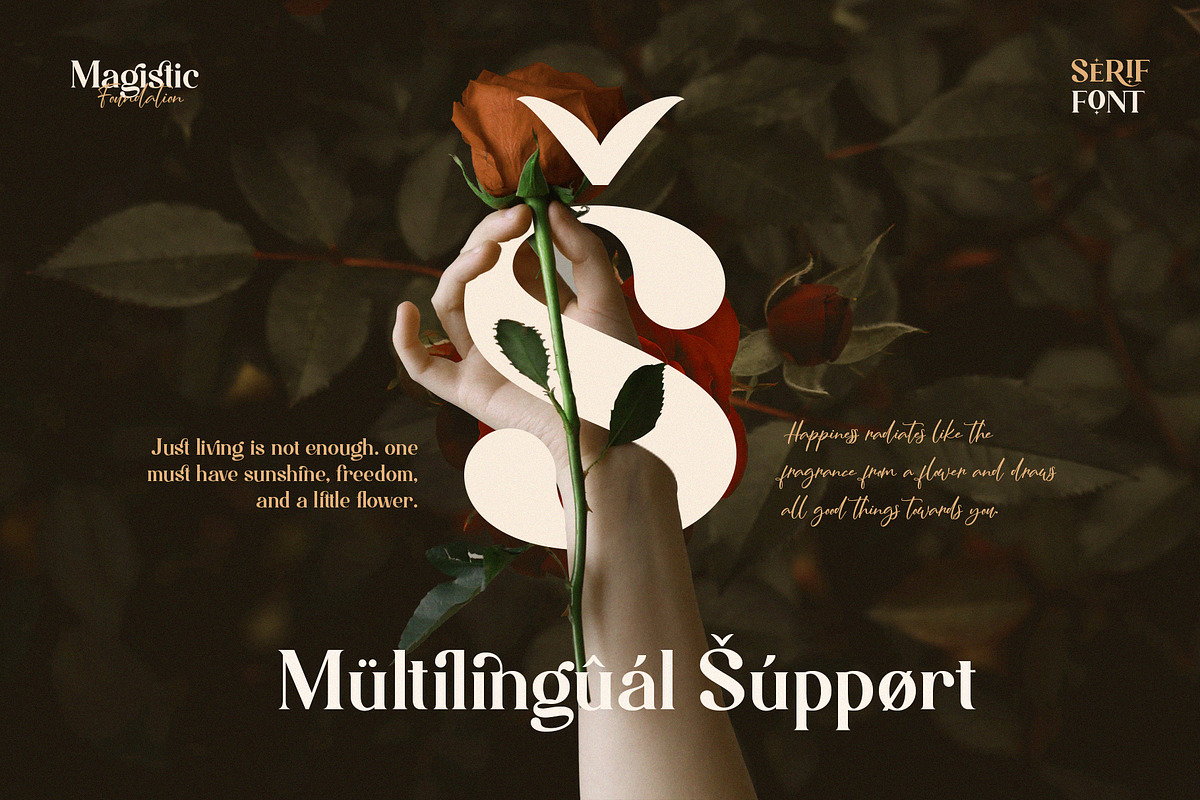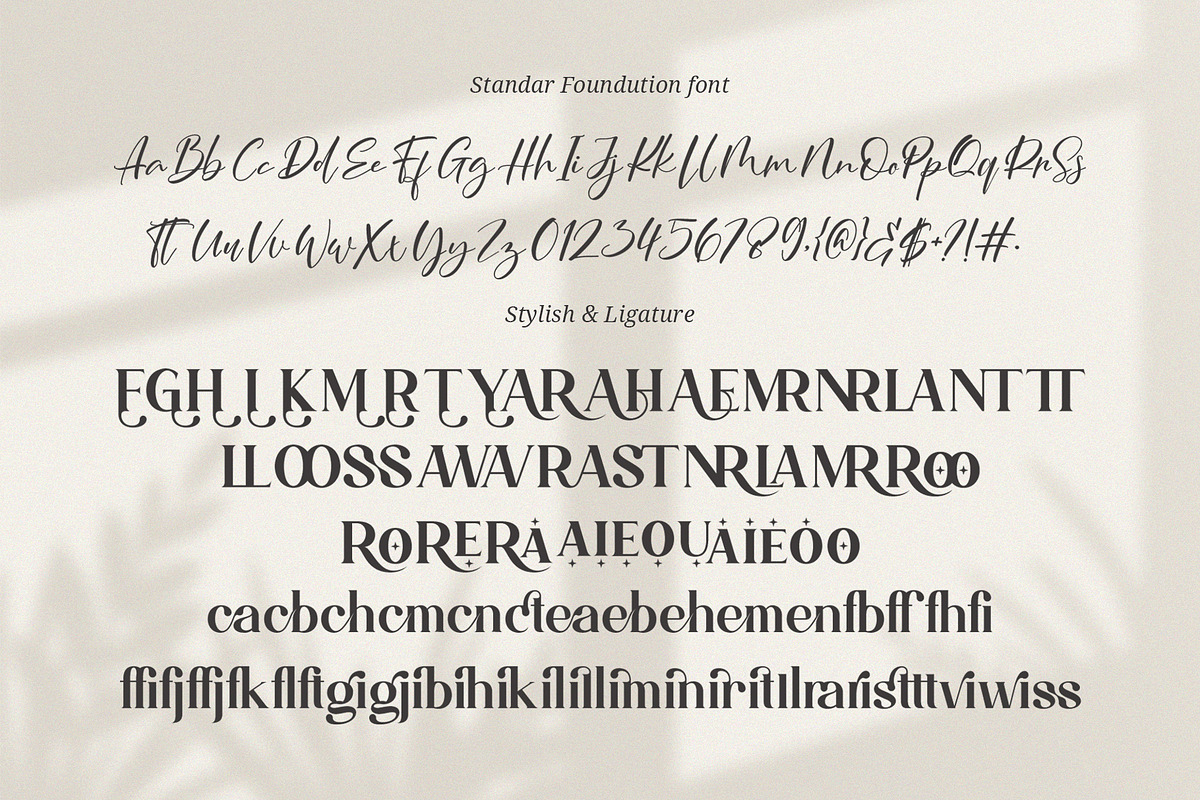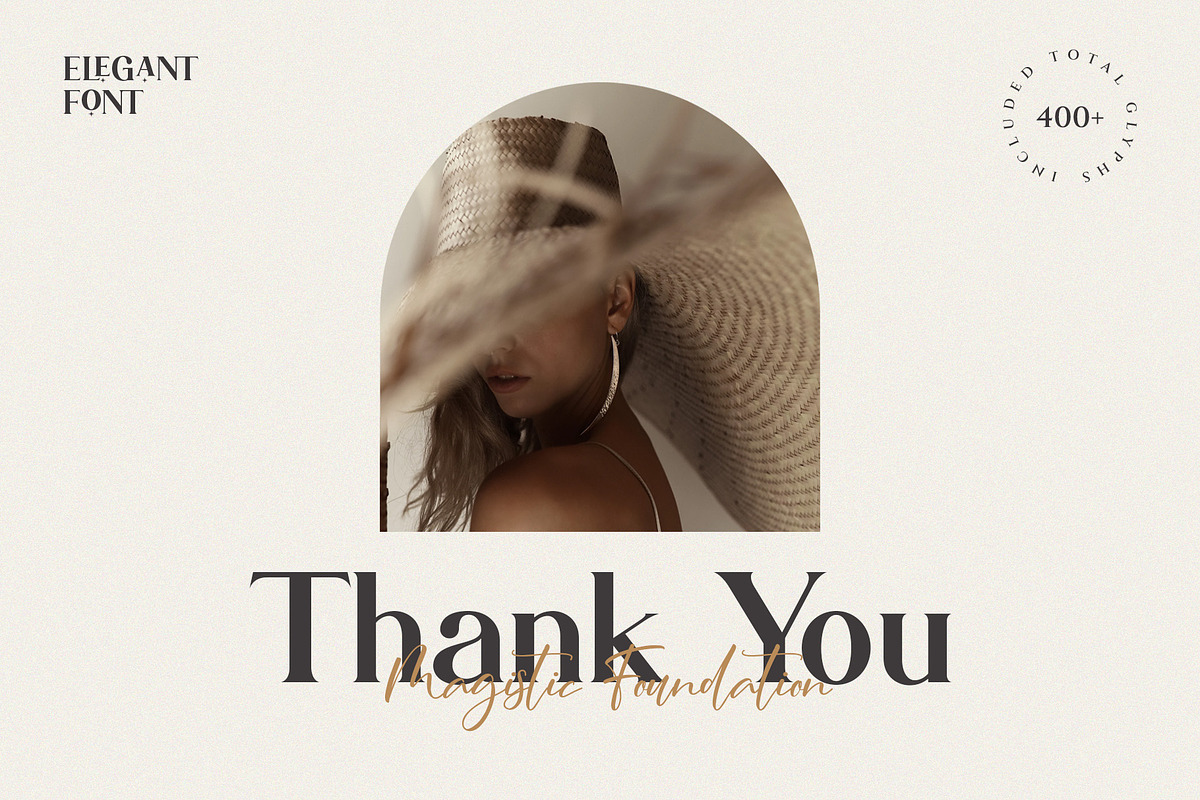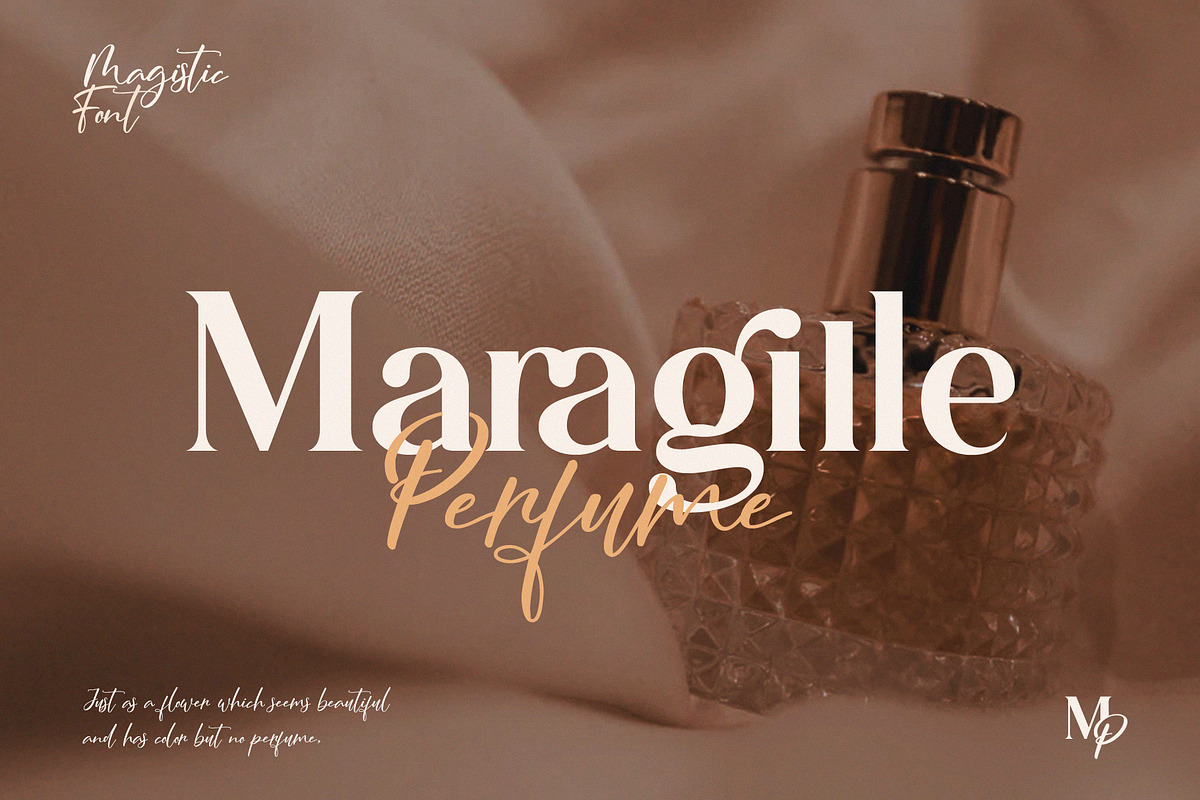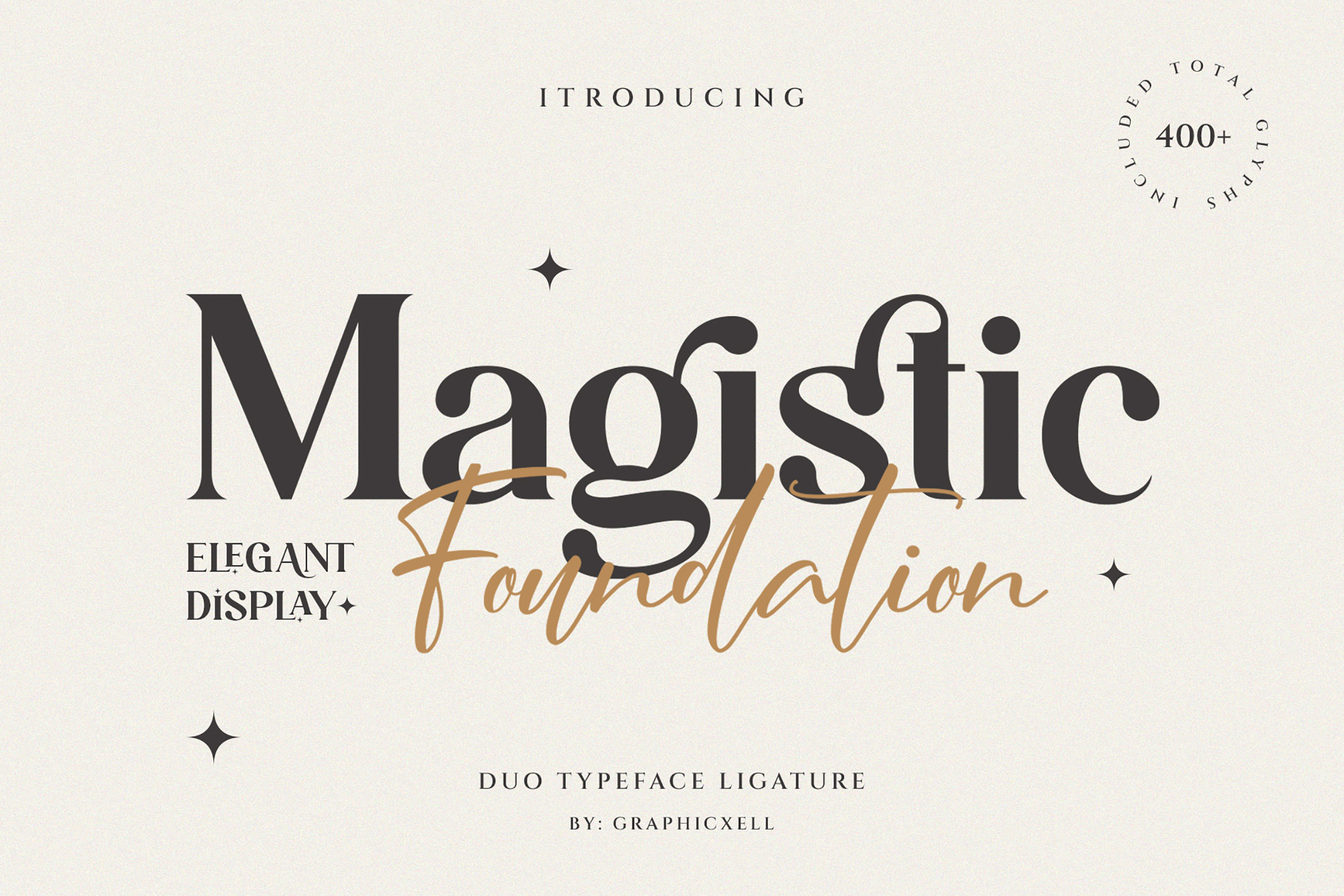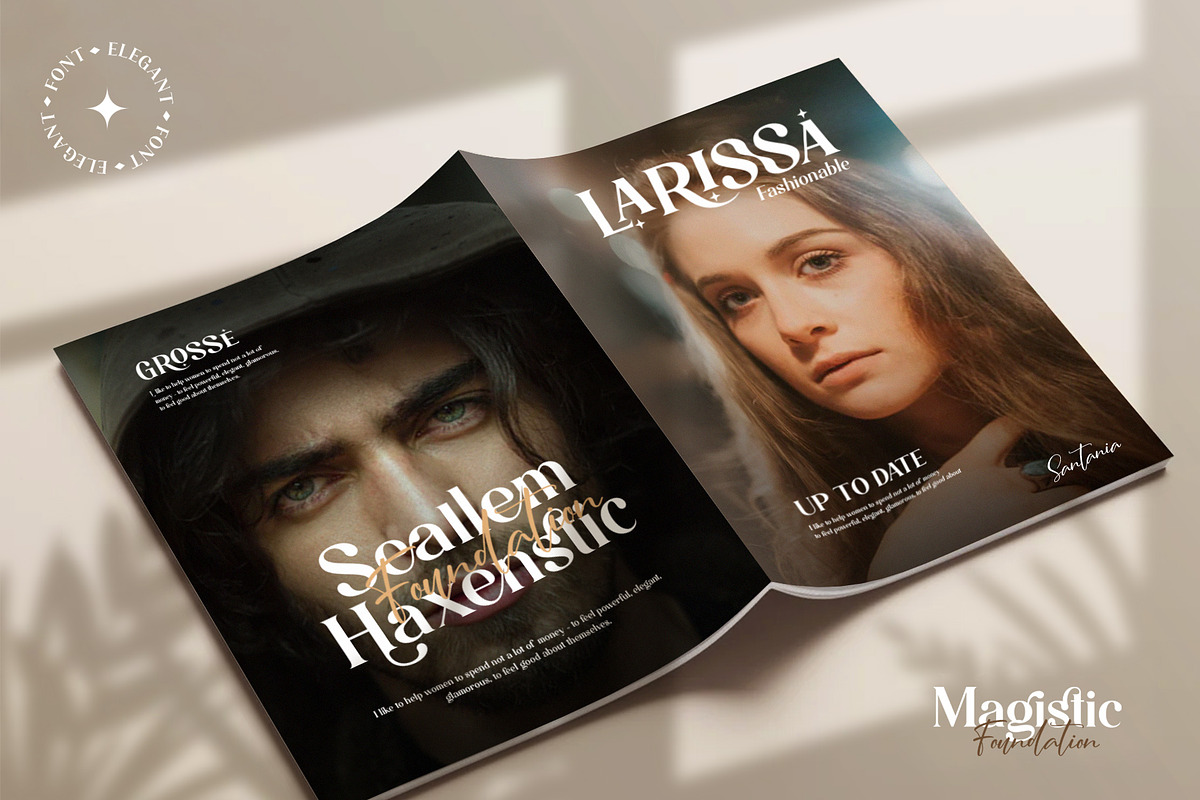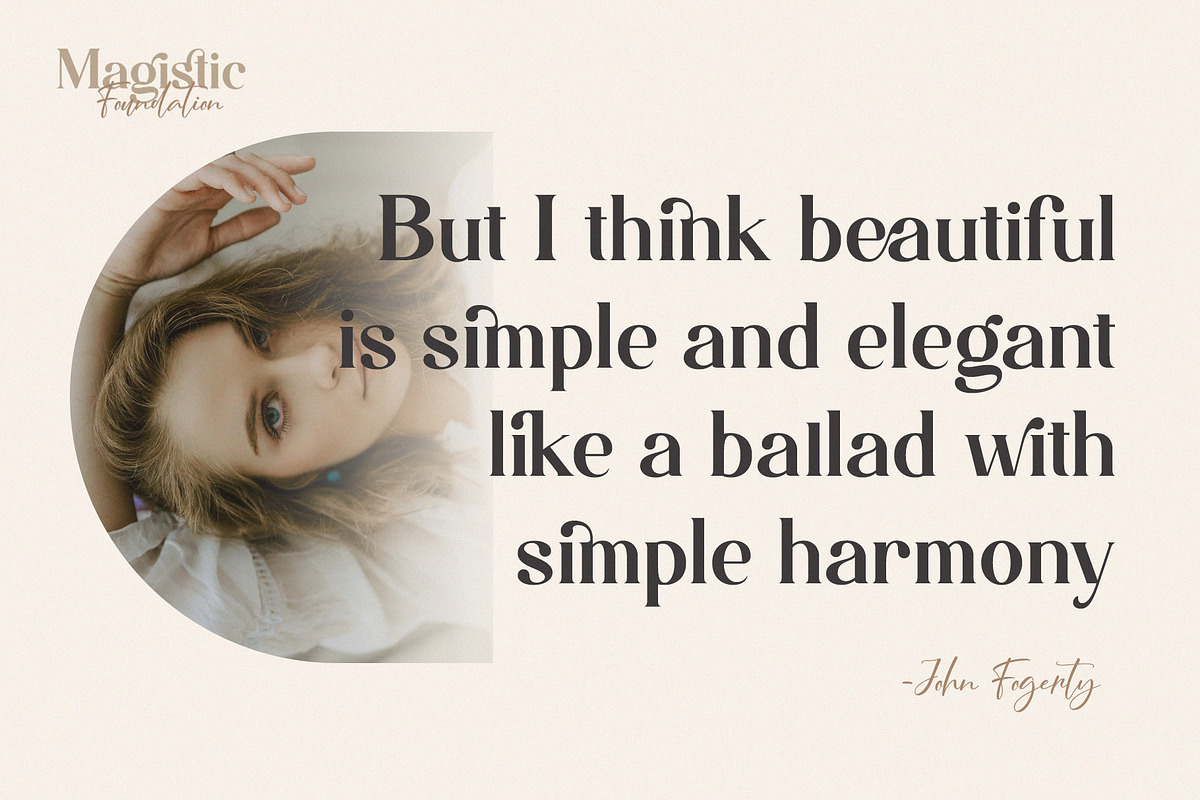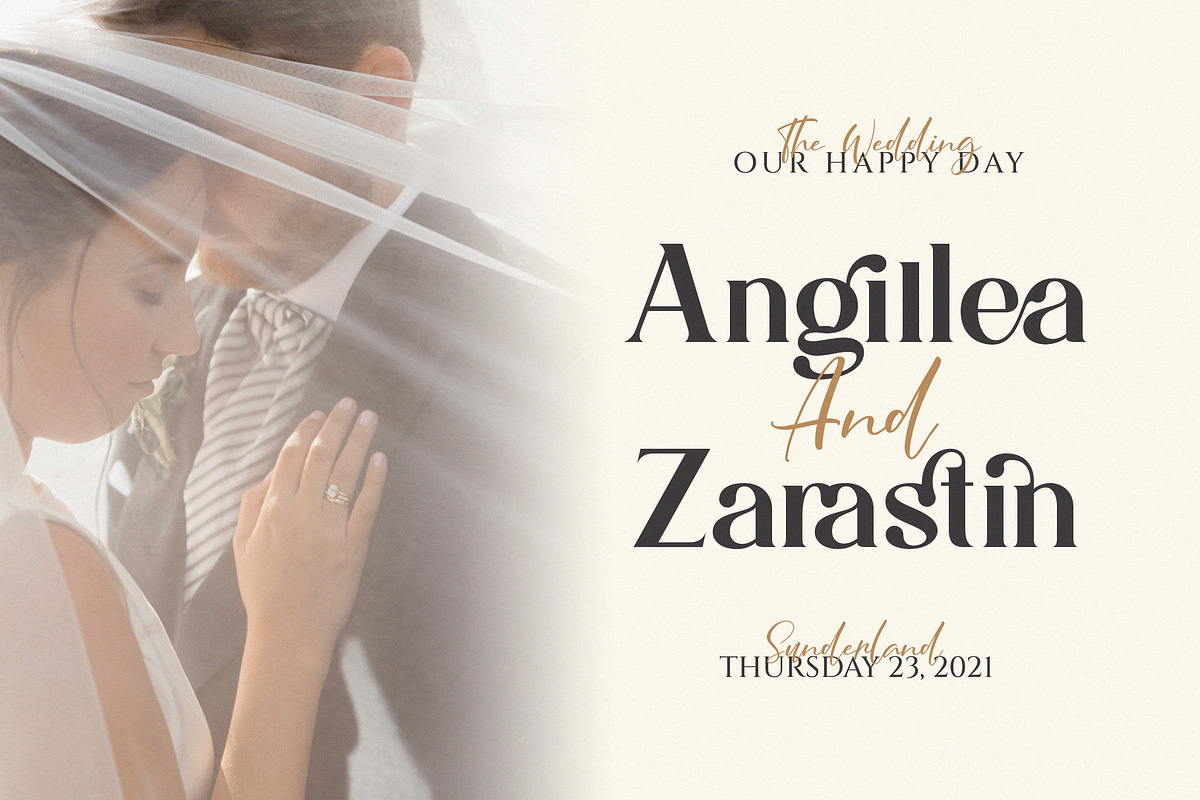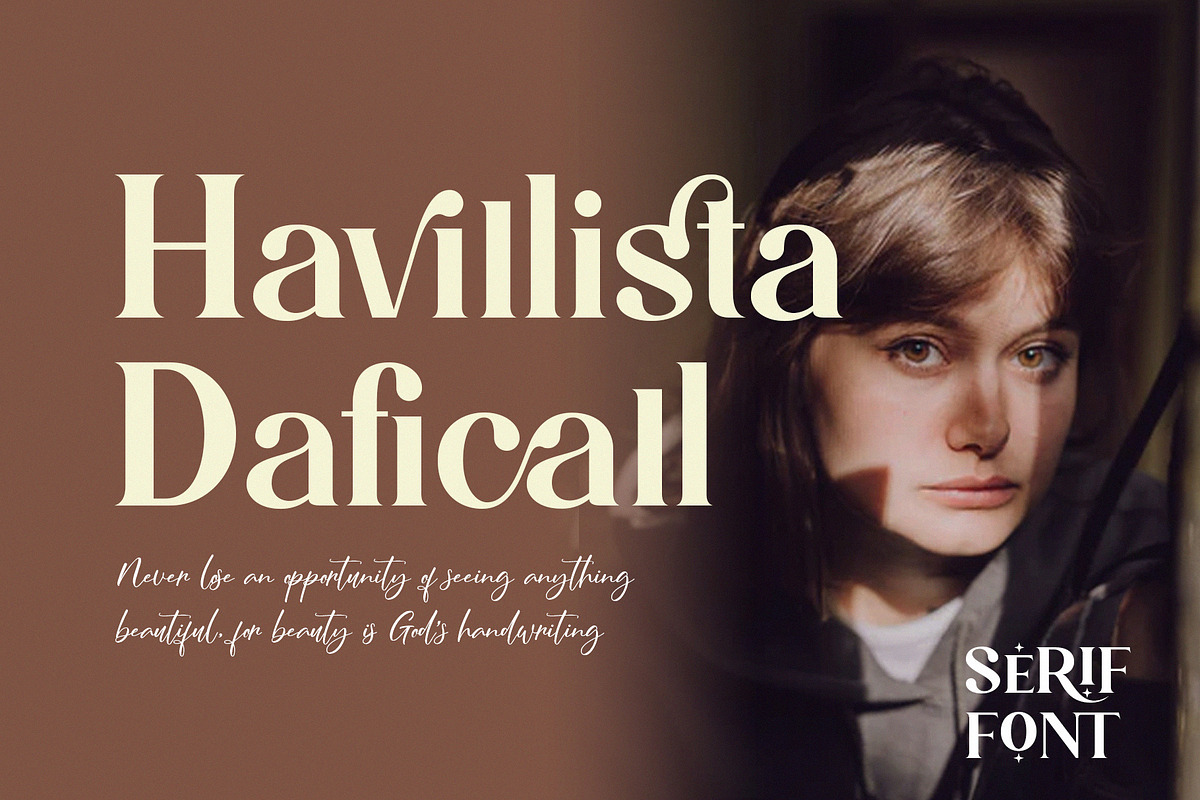
Magistic - Duo Ligature Typeface
Magistic is a clean and modern serif font made to bring a touch of style and class to your design work. This font comes with smooth ligatures that make your text look natural and attractive. Whether you’re creating logos, branding, websites, magazines, or product packaging, Magistic fits perfectly.
The letters in Magistic are balanced and well-shaped, giving your words a clear and easy flow. This makes the font great for both big headlines and longer paragraphs. Its elegant serif details add charm, while the ligatures create a polished and unique look.
Magistic works well for many projects like boutique brands, food labels, ads, and editorial designs. It mixes classic serif style with a fresh, modern look. So, no matter your field, this font will help your work stand out.
Why choose Magistic?
Stylish serif design with modern shapes
Smooth and useful ligatures
Works great for logos, branding, websites, and print
Easy to read and looks professional
Perfect for many types of projects
With Magistic, you get more than a font — you get a tool that adds style and professionalism to your designs. Make your next project stand out with this special serif font.